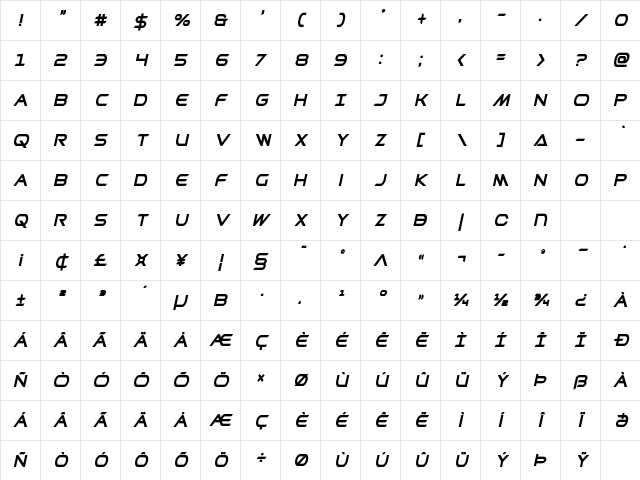
Promethean Bold Condensed Italic is a composed and adaptable typeface that performs quietly and consistently across a wide range of design contexts. The slanted form adds forward momentum and visual energy. Its bold stroke weight gives it real presence on the page. Its narrow stance lets it pack a punch even in space-constrained designs.